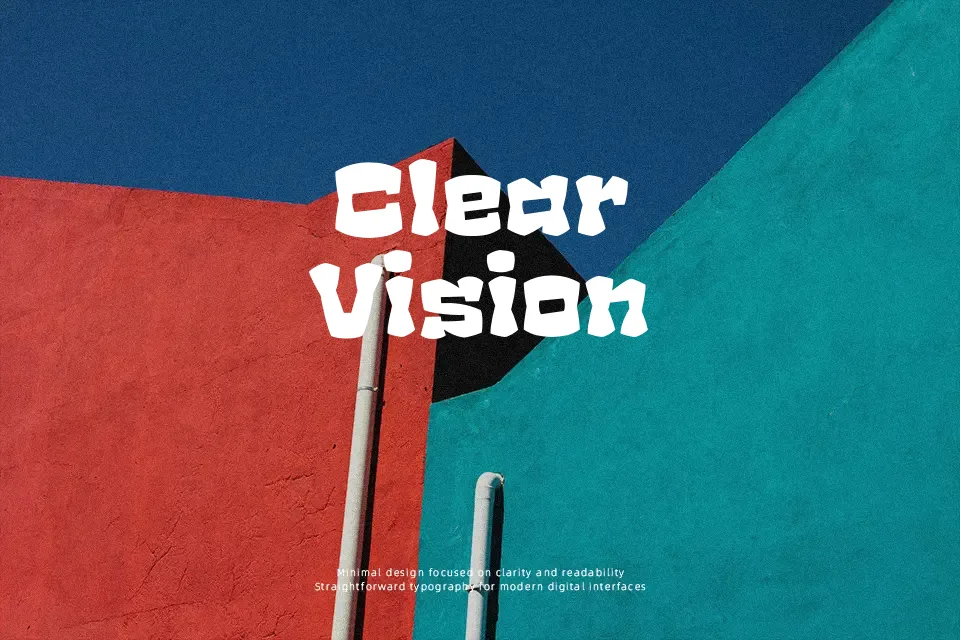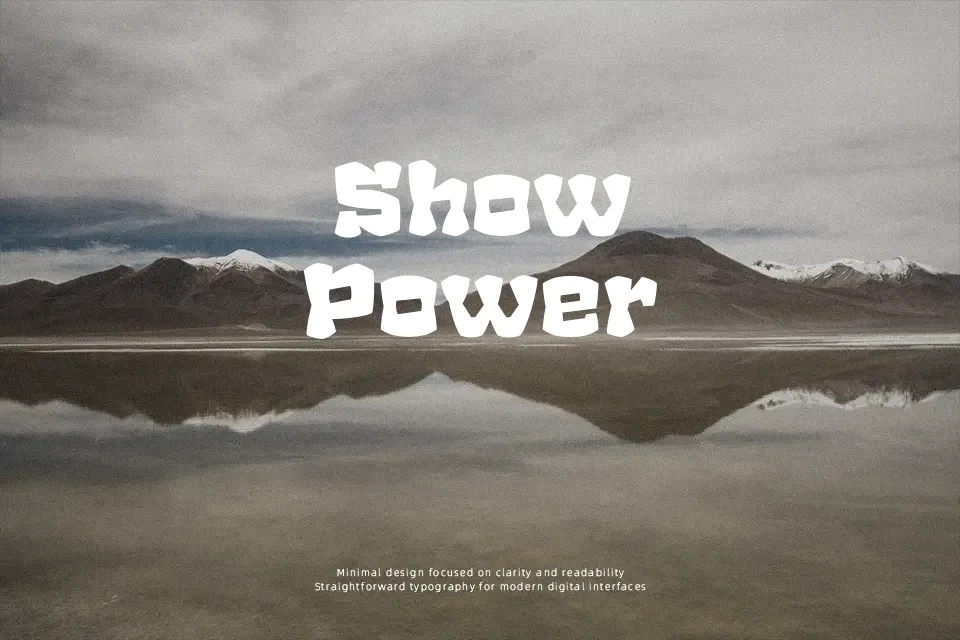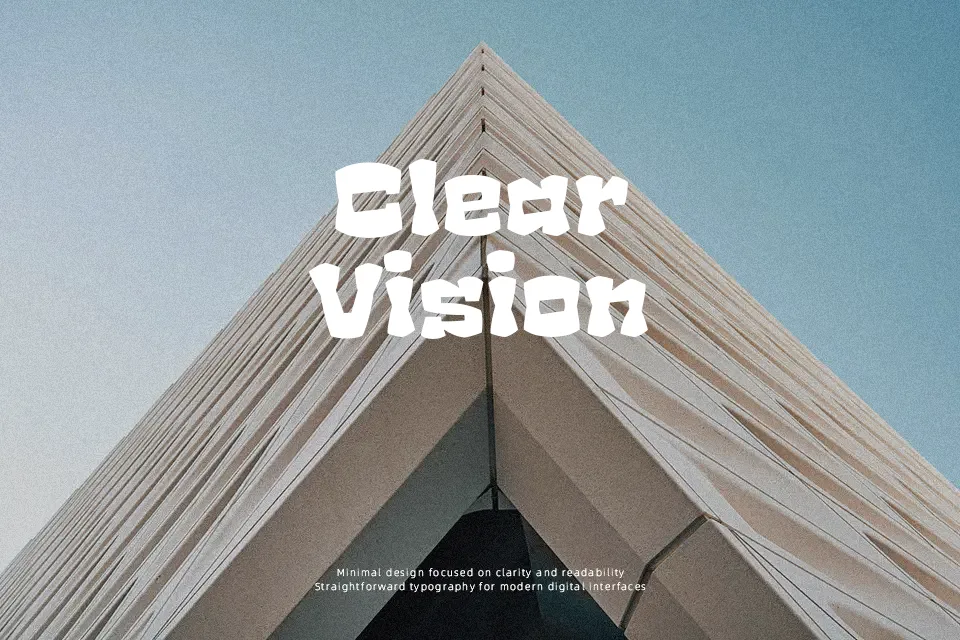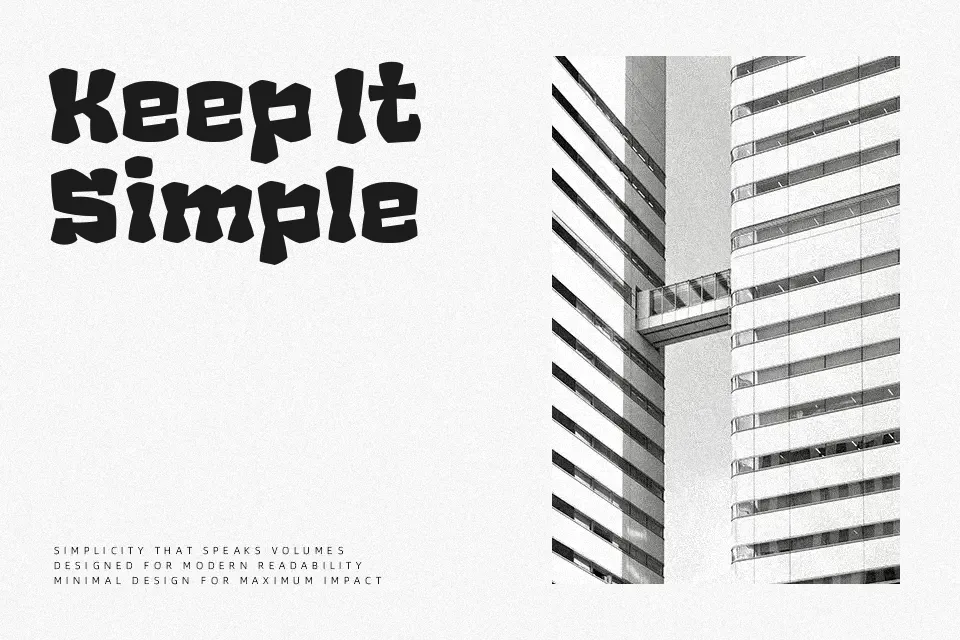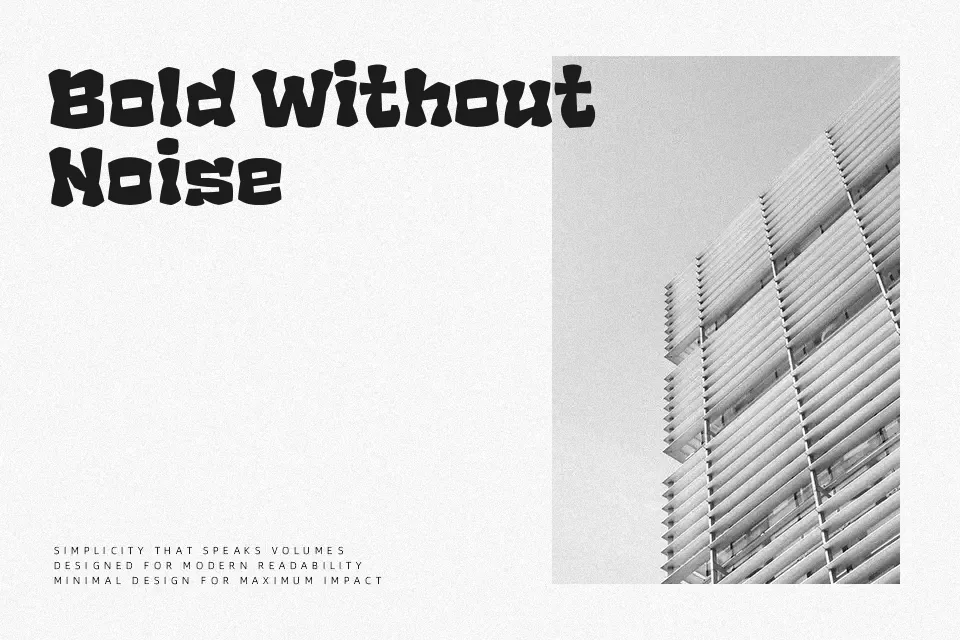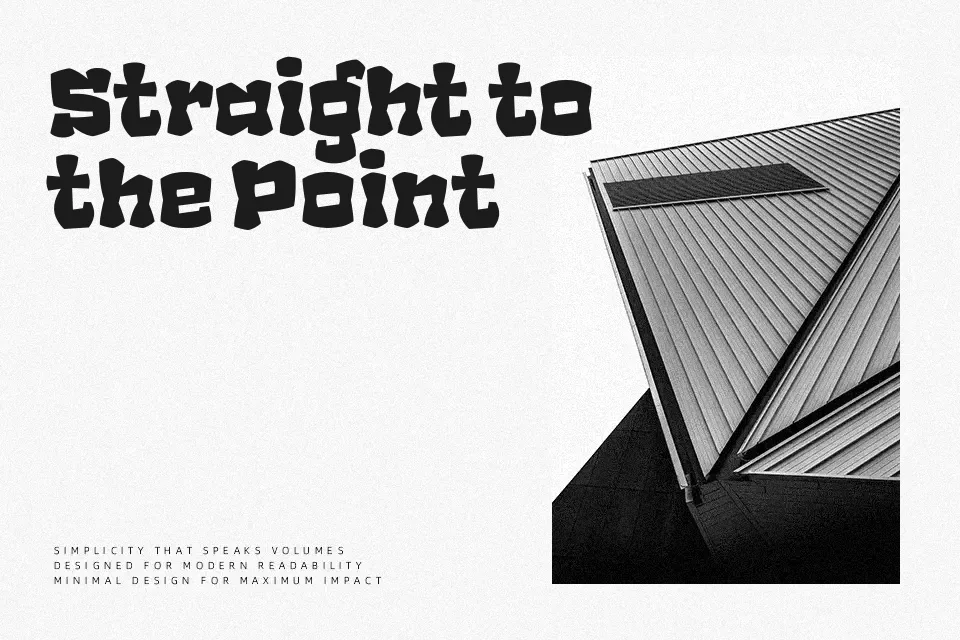
Rague Font
A short product label or poster headline benefits from the robust and dense structure of Rague Font. This heavy sans-serif display typeface is characterized by thick, energetic strokes, compact proportions, and a bold stone-cut aesthetic that creates high visual impact. The letterforms carry a slightly retro energy, utilizing substantial weight to anchor graphic layouts. The tight spacing helps maintain visual rhythm and clarity in larger headlines, allowing designs to feel structured rather than loose. However, these thick forms significantly reduce comfort during extended reading, making the typeface entirely unsuitable for long paragraphs. It functions most effectively in bold branding, festival banners, and retro packaging where maximum weight is required.
vintage product packaging, festival posters, game title graphics, bold merchandise apparel
dense editorial layouts, long paragraph text, small interface labels
Perfect for gaming, headline, and packaging, with a bold and decorative style.